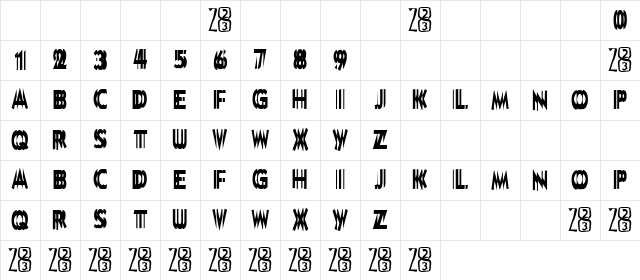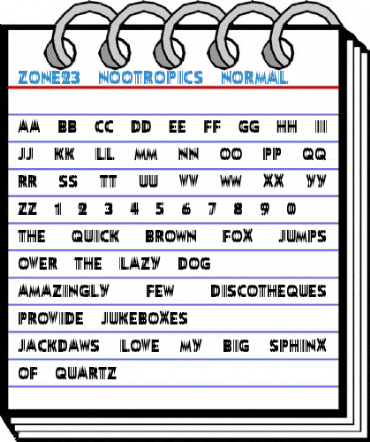
Zone23_nootropics Normal Free Font
Zone23_nootropics Normal
Style: Normal
Design Context for Zone23_nootropics
Zone23_nootropics is a composed and adaptable typeface that performs quietly and consistently across a wide range of design contexts.